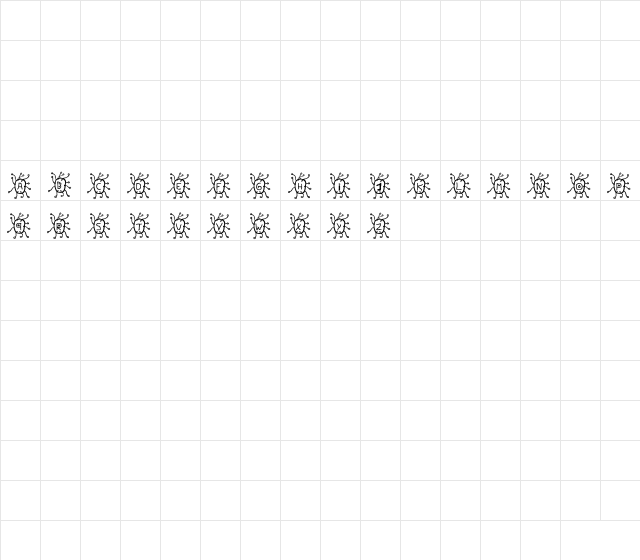
Virus Virus
| Foundry | High-Logic |
| Designer | High-Logic - Erwin Denissen 1999 |
Design Context for Virus Typeface
Virus is a composed and adaptable typeface that performs quietly and consistently across a wide range of design contexts.